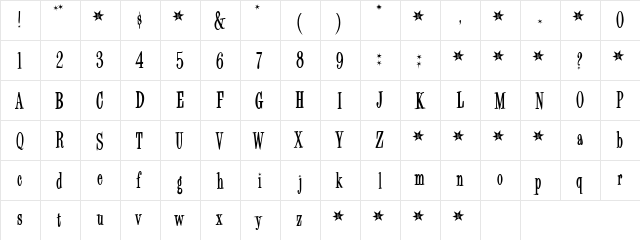
BigFlirt Regular
Design Context for BigFlirt Typeface
BigFlirt takes a measured approach to typography — its balanced proportions and neutral character make it a reliable workhorse for both digital and print work.